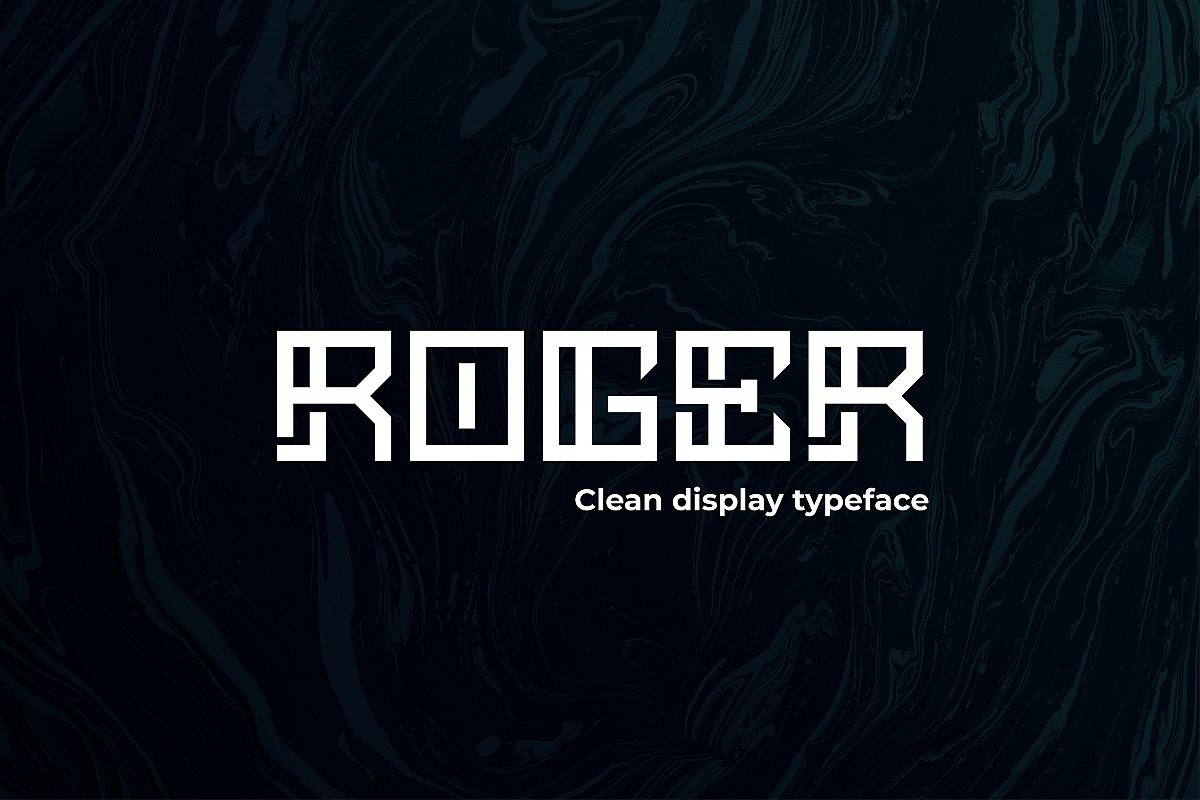
ROGER - Display typeface
ROGER
ROGER-Rounded
Roger is a contemporary sans-serif typeface stimulated with the geometric shapes and fluidity of modern typefaces. The aesthetics have proven to work well in most layouts, contexts and is accompanied with uppercase.
ROGER includes:
• 2 Weights
• Numerals
• Extended Characters
We will supply this with Italic version, Cyrillic and one more weitght